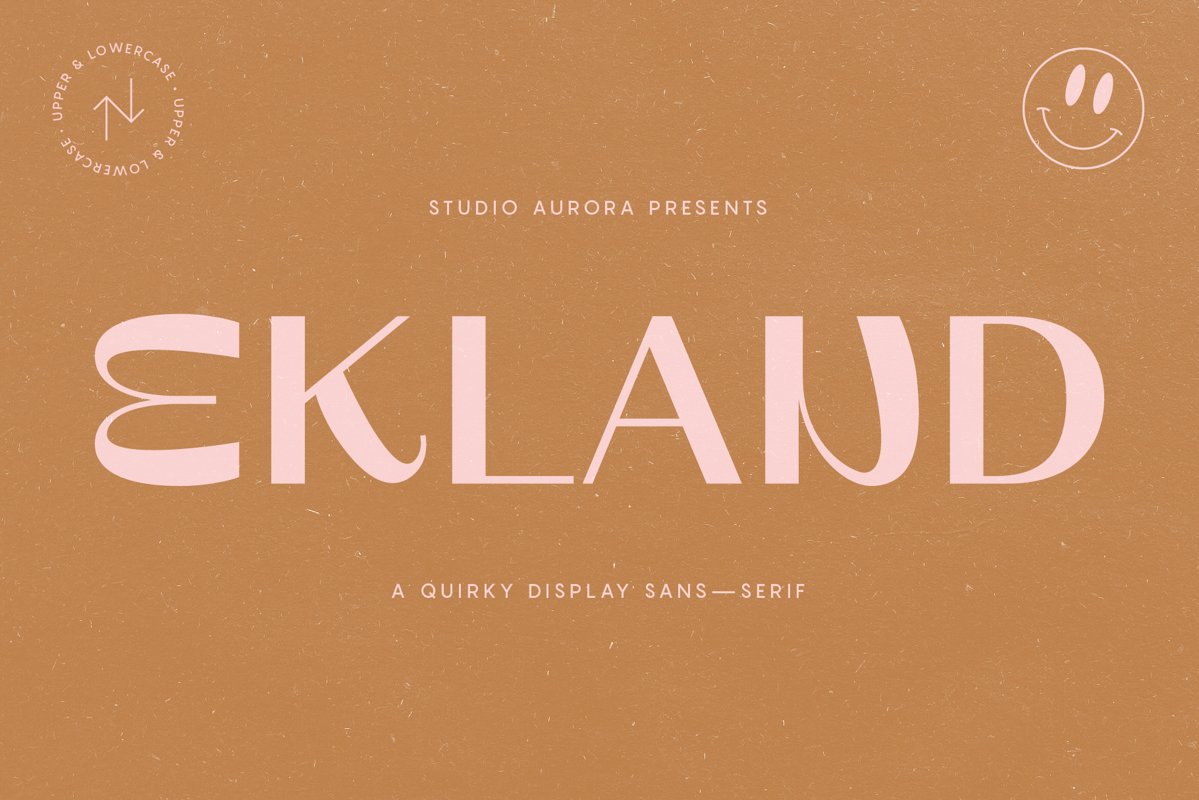
Ekland - Quirky Funky Display Font
Ekland
Introducing our new typeface, Ekland - A quirky, funky sans-serif display typeface.
This is a display sans-serif font that we recommend using in the following types of work; magazines (titles and layouts), logos and branding, invitations, quotes, blog headers, posters, advertising and body copy.
• Uppercase and lowercase glyphs